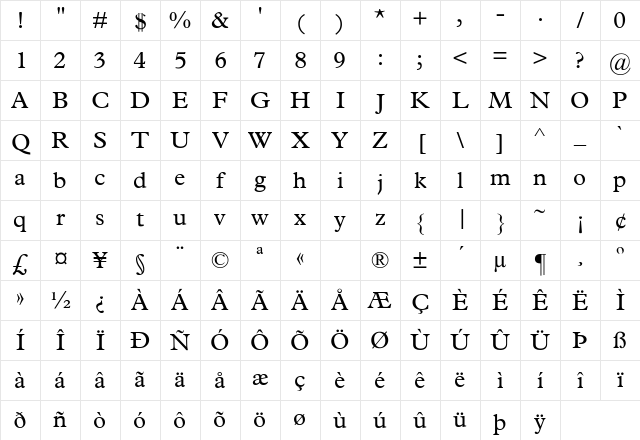
MPlantin Regular
Design Context for MPlantin
MPlantin is a composed and adaptable typeface that performs quietly and consistently across a wide range of design contexts.
Pro Tip: Use MPlantin in both headline and body roles to test its range before committing to a single application.